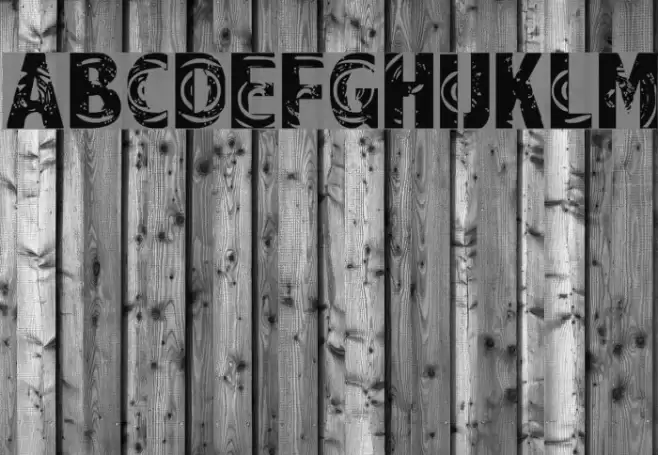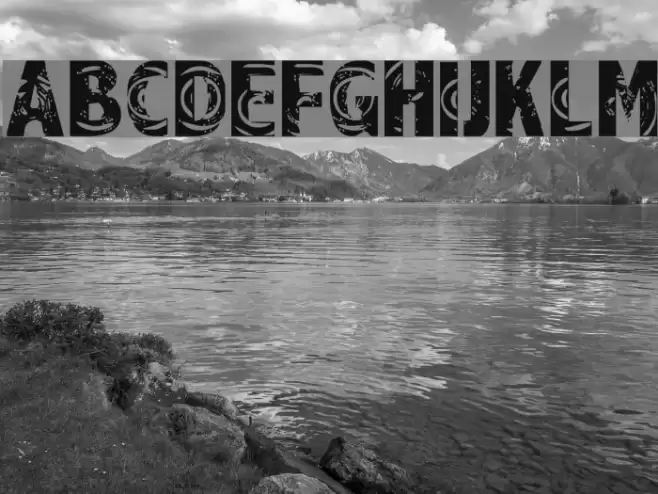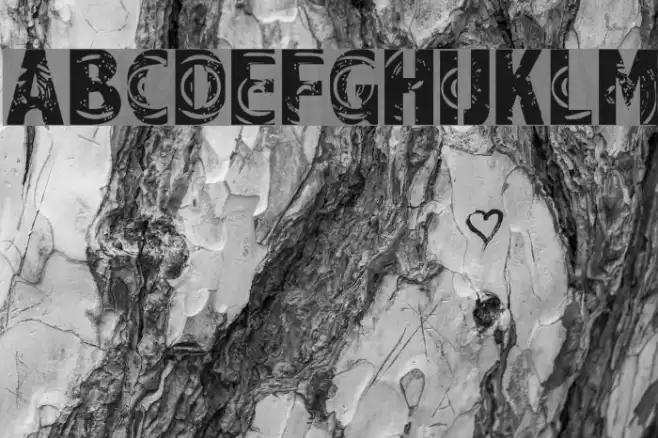
Raindrop Splash Font
Raindrop Splash Description
This font features a bold, decorative style with a unique raindrop splash effect integrated into each character. The uppercase letters are heavily stylized, with intricate patterns that mimic the appearance of water droplets splashing across the surface. This creates a dynamic and eye-catching visual effect, making it ideal for projects that require a strong visual impact. The font's design is consistent across all characters, maintaining a cohesive look while offering a creative twist on traditional letterforms.
| Proposed Projects | Ideal for posters, album covers, event invitations, and branding materials that require a bold and artistic touch. |